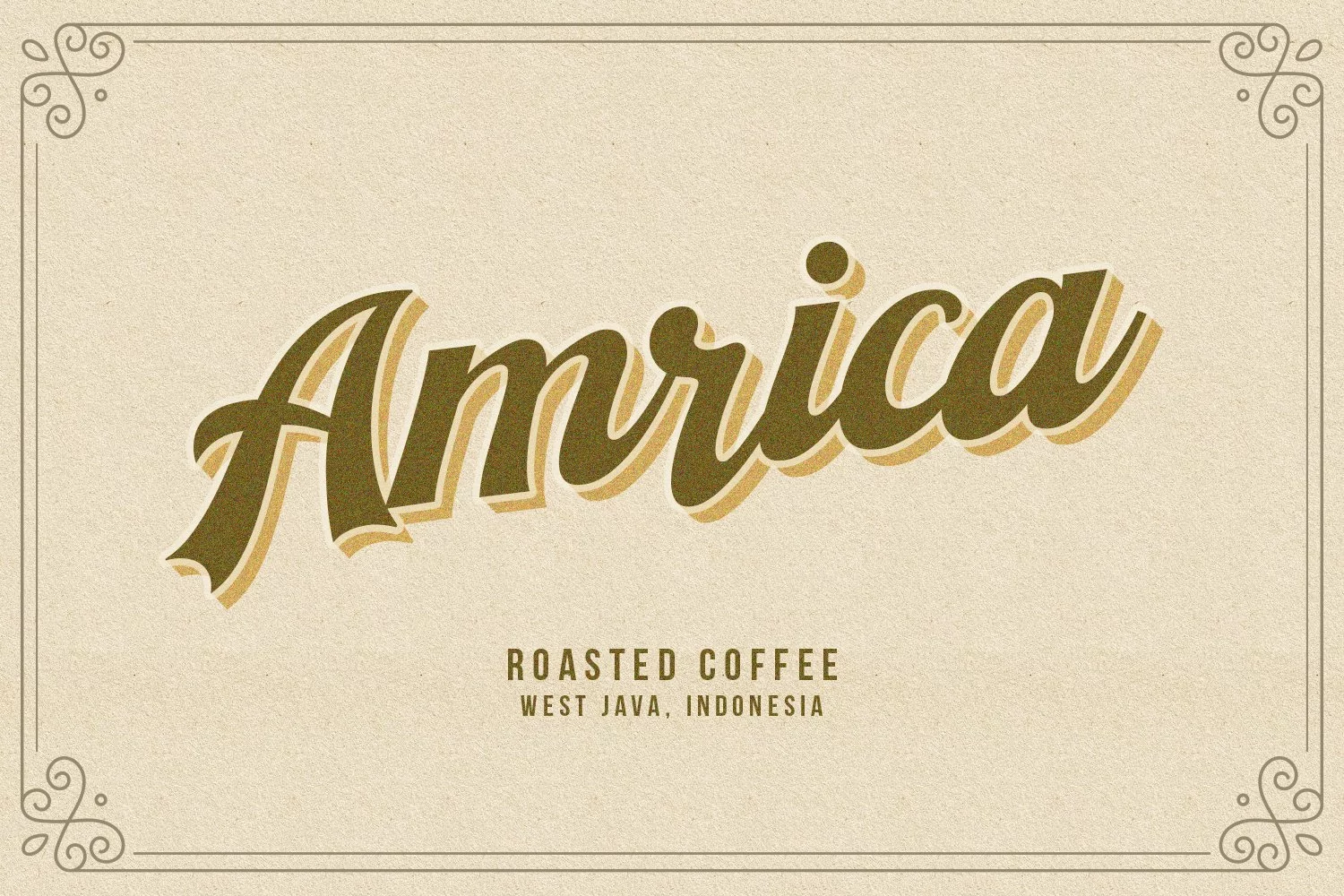
Give your designs an authentic handcrafted feel. "Lekcra Crubop Font" is perfectly suited to signature, stationery, logo, typography quotes, magazine or book cover, website header, clothing, branding, packaging design and more.
- Ligature
- Alternate